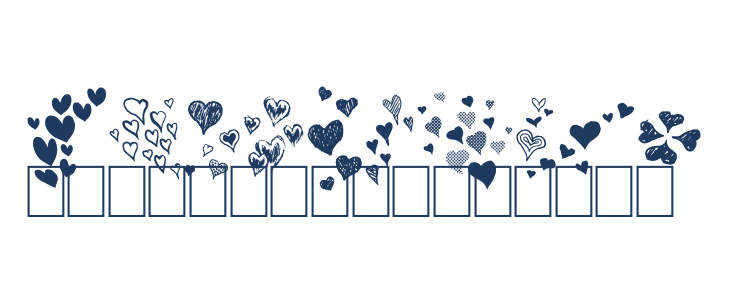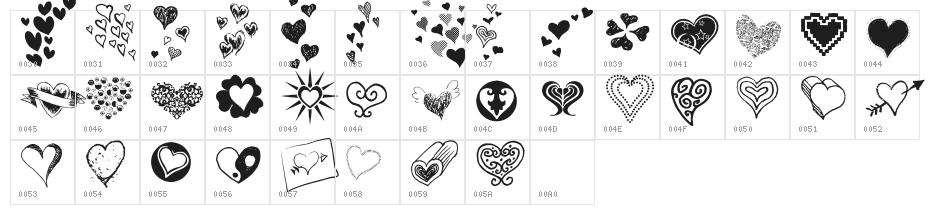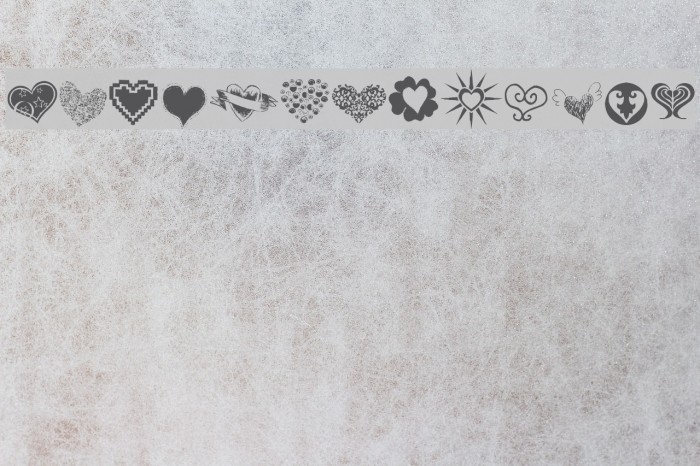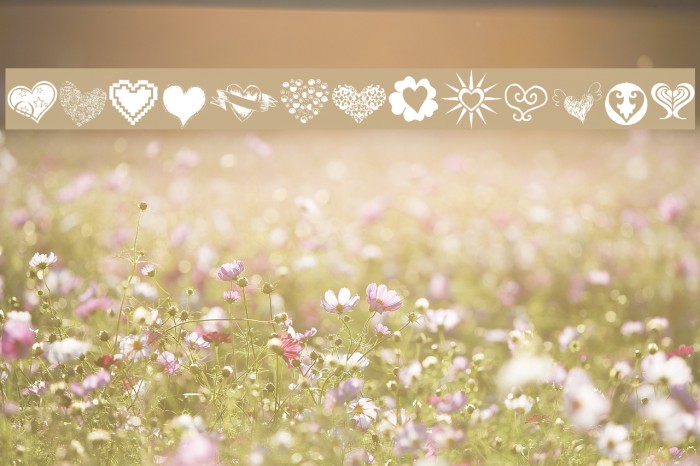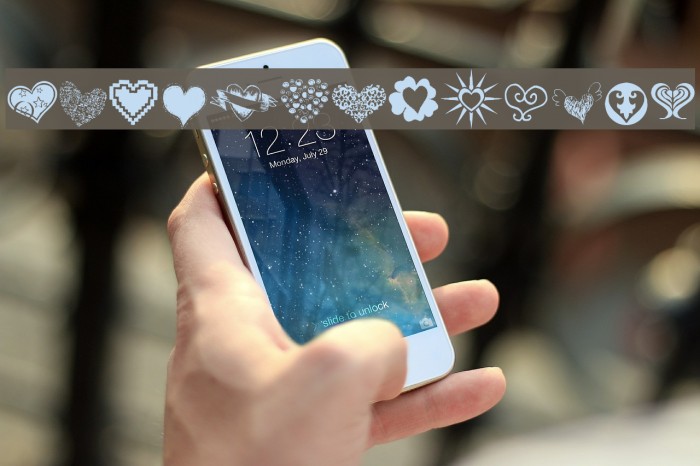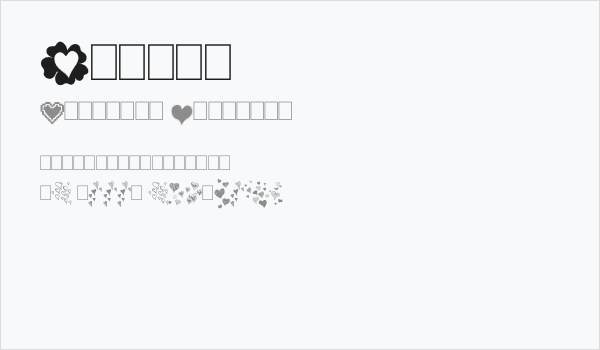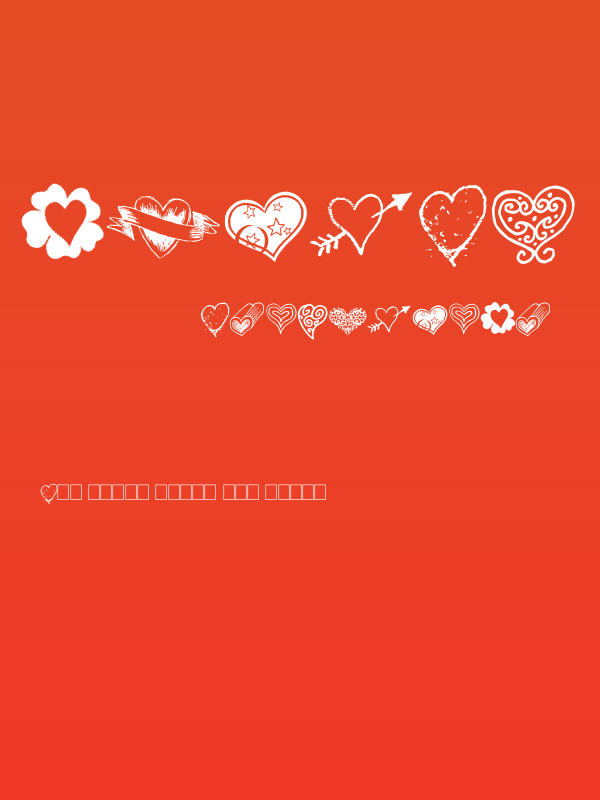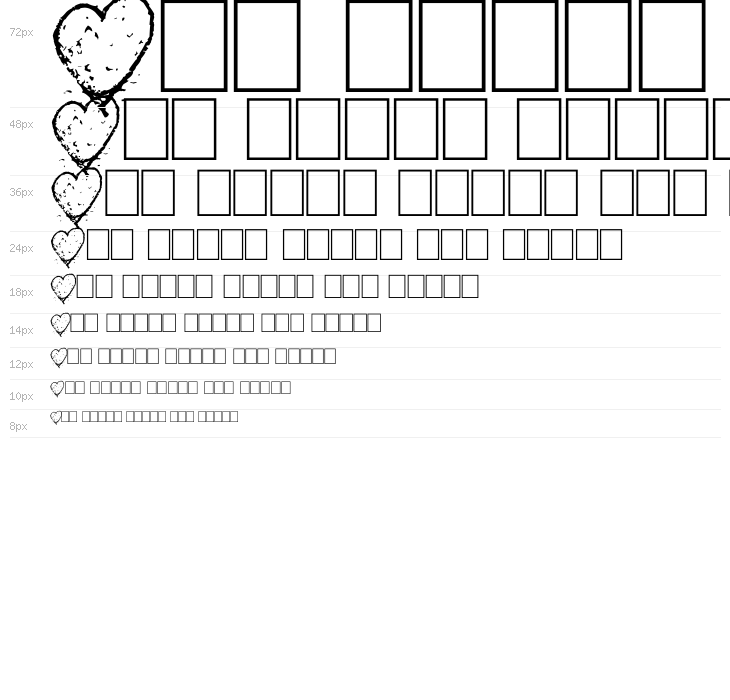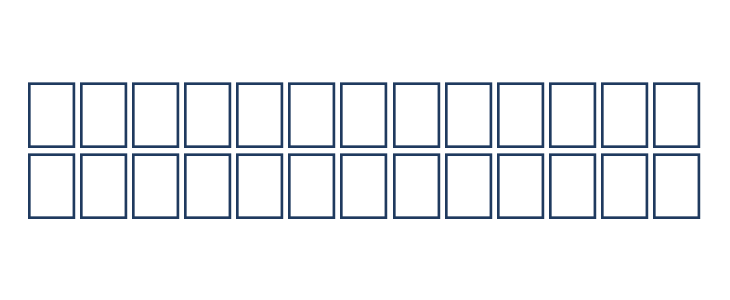
Heartz Font
Heartz Description
This decorative font is a playful and whimsical collection of heart-themed symbols and designs. Each character is uniquely crafted to represent different styles of hearts, ranging from simple outlines to intricate patterns and filled designs. The font includes a variety of heart shapes, some with arrows, wings, or other embellishments, making it ideal for romantic or love-themed projects. The characters are bold and eye-catching, with a mix of solid and textured fills that add depth and interest. This font is perfect for adding a touch of love and creativity to any design.
| Use Case | Logos, Posters, Invitations |
| Proposed Projects | Ideal for Valentine's Day cards, wedding invitations, love-themed posters, and romantic graphic designs. |